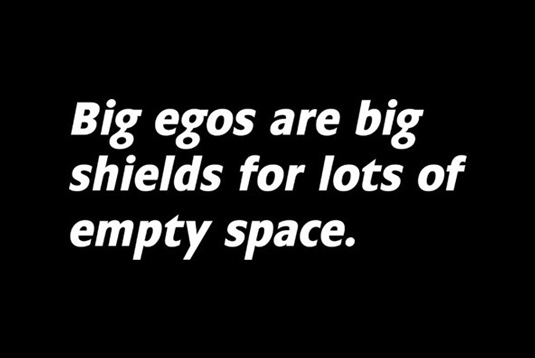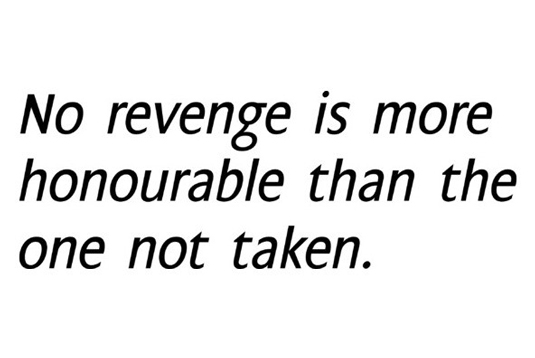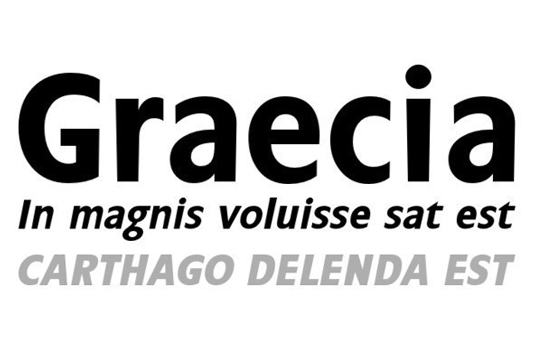
Font of the day: Chalfont
Every day we showcase the best fonts on the web. Today it's Chalfont by Alan Meeks.
Chalfont by Alan Meeks
Today's typeface of choice, Chalfont, was created by lettering artist Alan Meeks, developed after he saw a photocopy of some News Gothic text where the ink had faded on the bottom of each character. "As character recognition is generally based on the top half of a character, readability was never compromised," he comments.